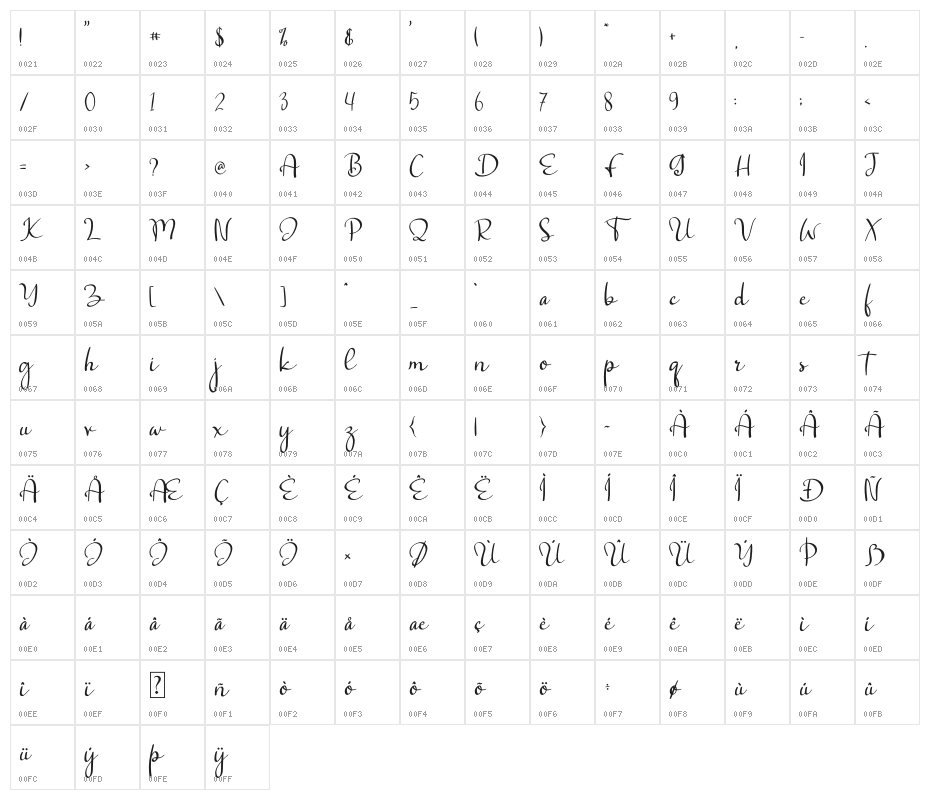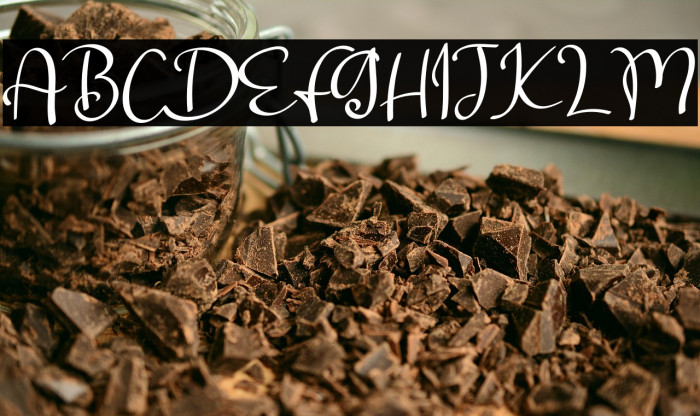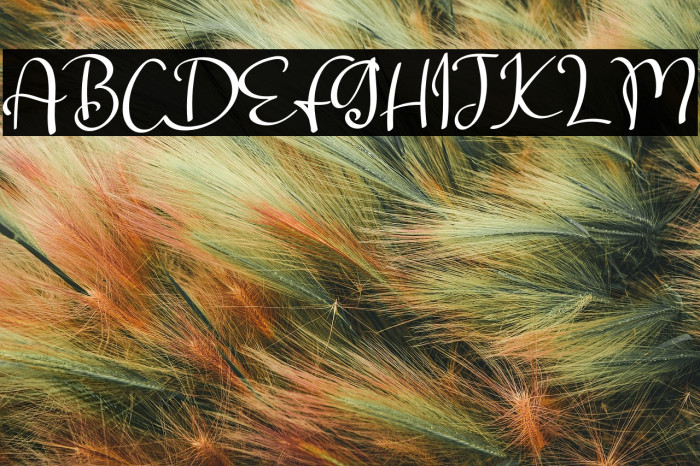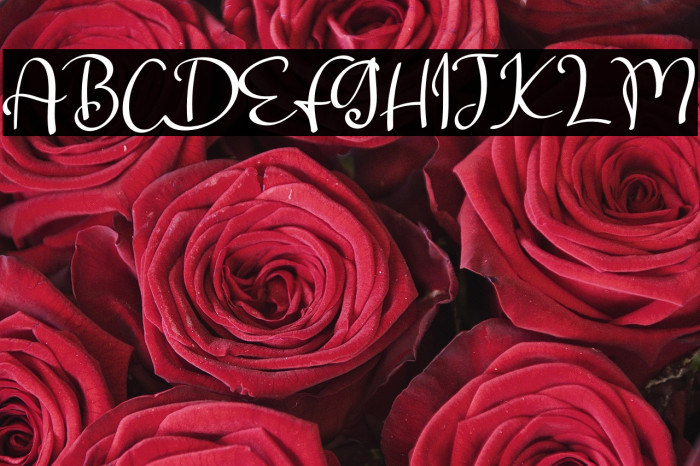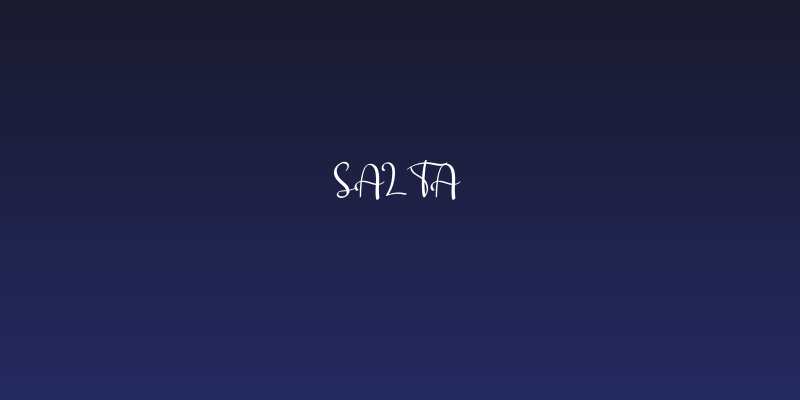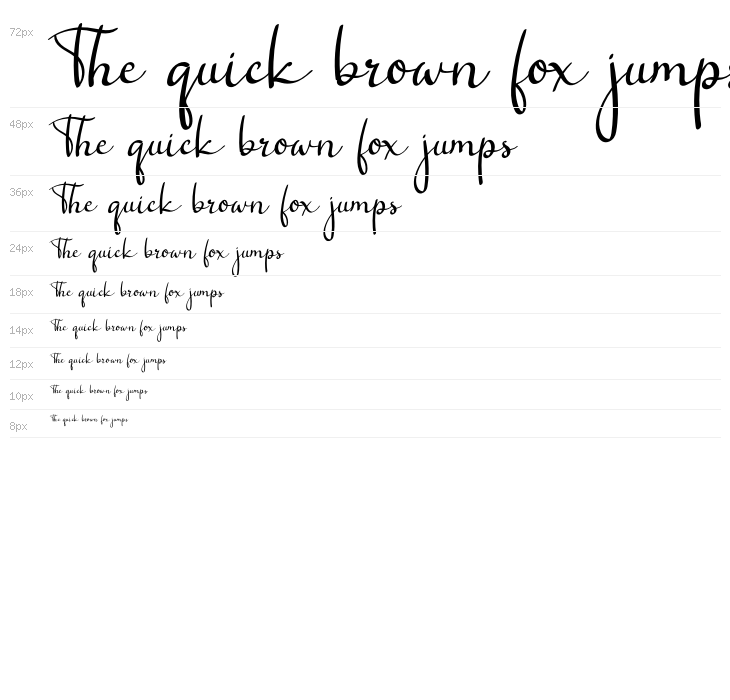
Salta Font
Salta Description
This font features an elegant and flowing script style, characterized by its smooth, cursive strokes and a sense of fluidity. The uppercase letters are ornate, with exaggerated loops and flourishes, while the lowercase letters maintain a consistent, graceful rhythm. The numerals are styled to match the overall aesthetic, with a touch of sophistication. Special characters are designed with the same attention to detail, adding to the font's cohesive appearance. This font is perfect for projects that require a touch of elegance and personality.
| Overall Style | Elegant, Decorative |
| Use Case | Logos, Invitations, Decorative text |
| Proposed Projects | Ideal for wedding invitations, greeting cards, branding, and elegant logo designs. |